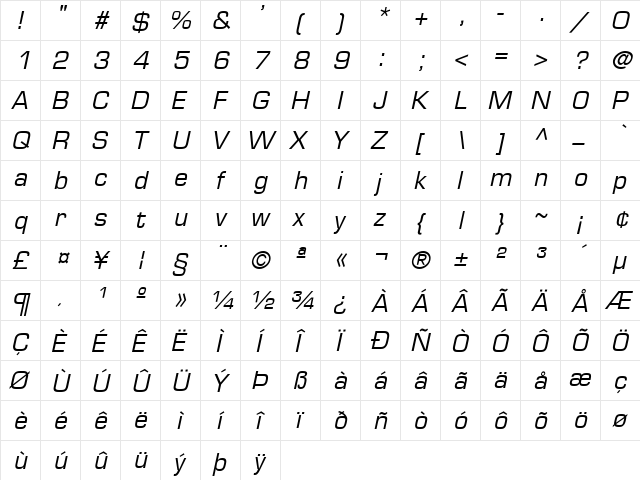
Euramode Italic Regular
Design Context for Euramode Italic Typeface
Euramode Italic is a composed and adaptable typeface that performs quietly and consistently across a wide range of design contexts. The dynamic lean of this cut emphasises speed and emphasis in any layout.
Pro Tip: Use Euramode Italic for emphasis, pull quotes, and subheadings where its slanted energy can add rhythm to the layout.